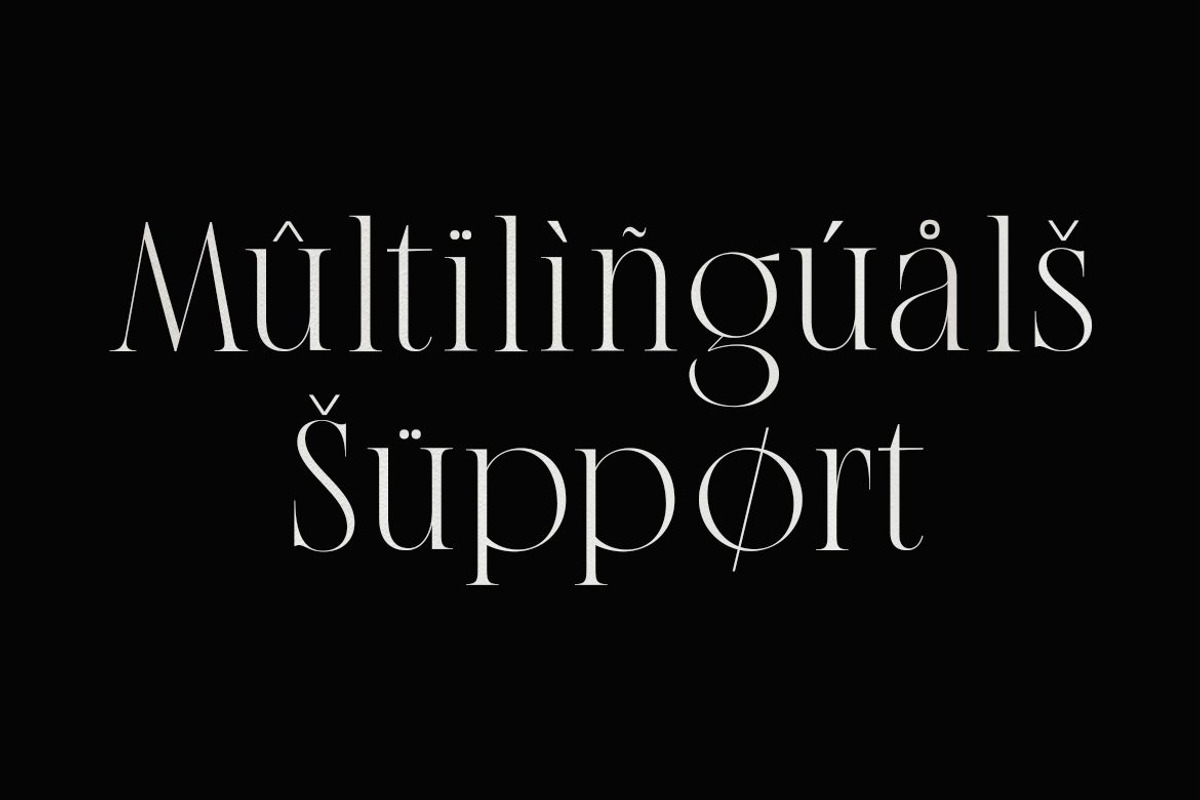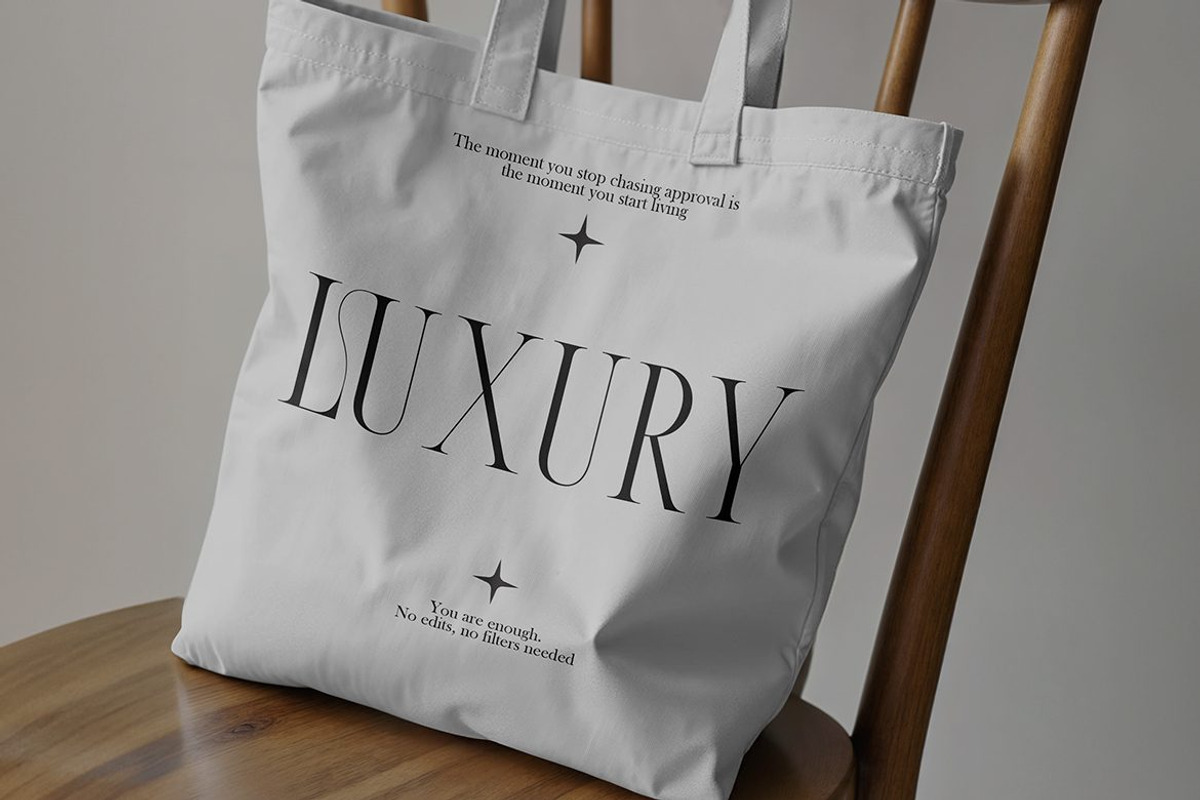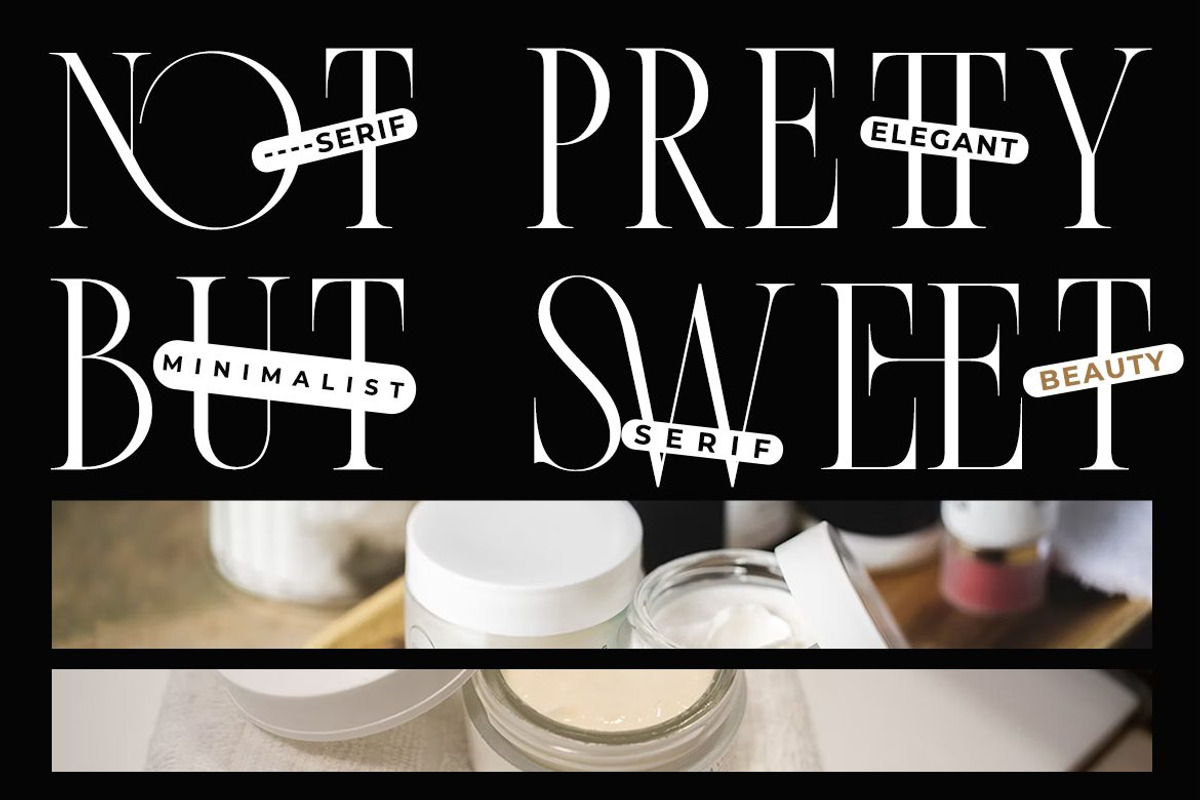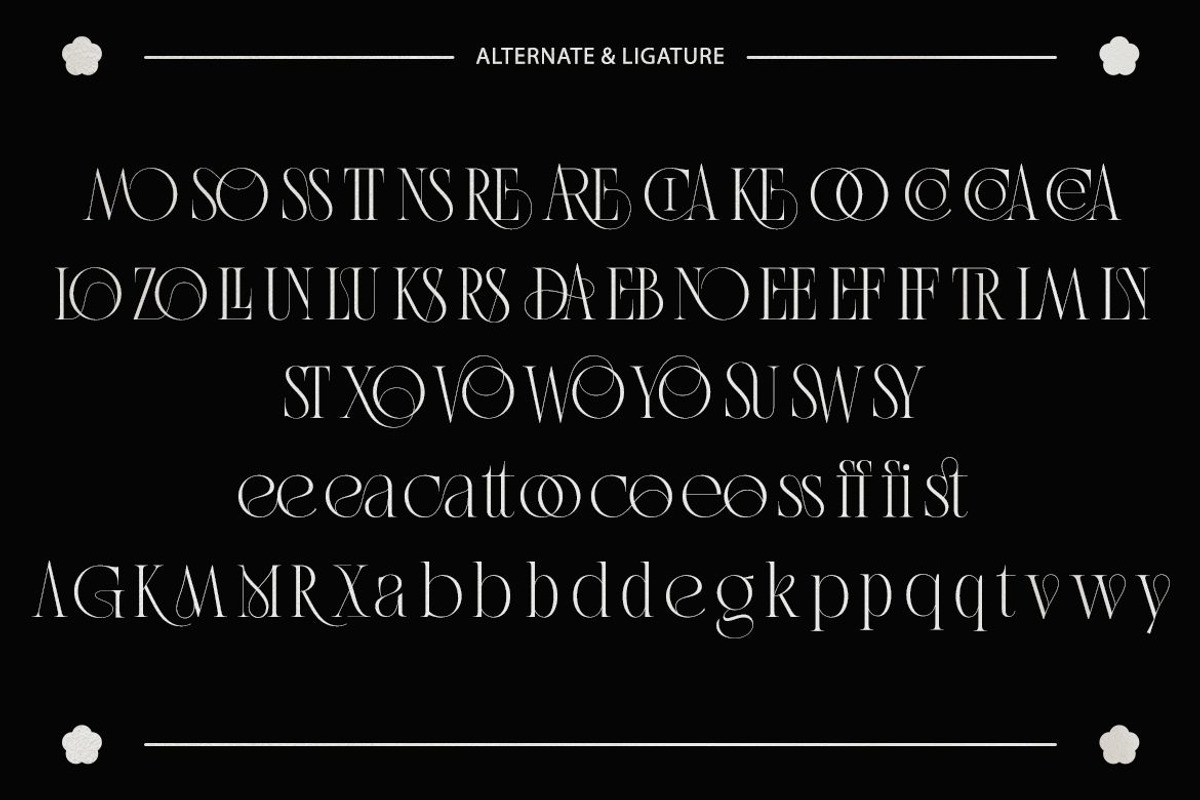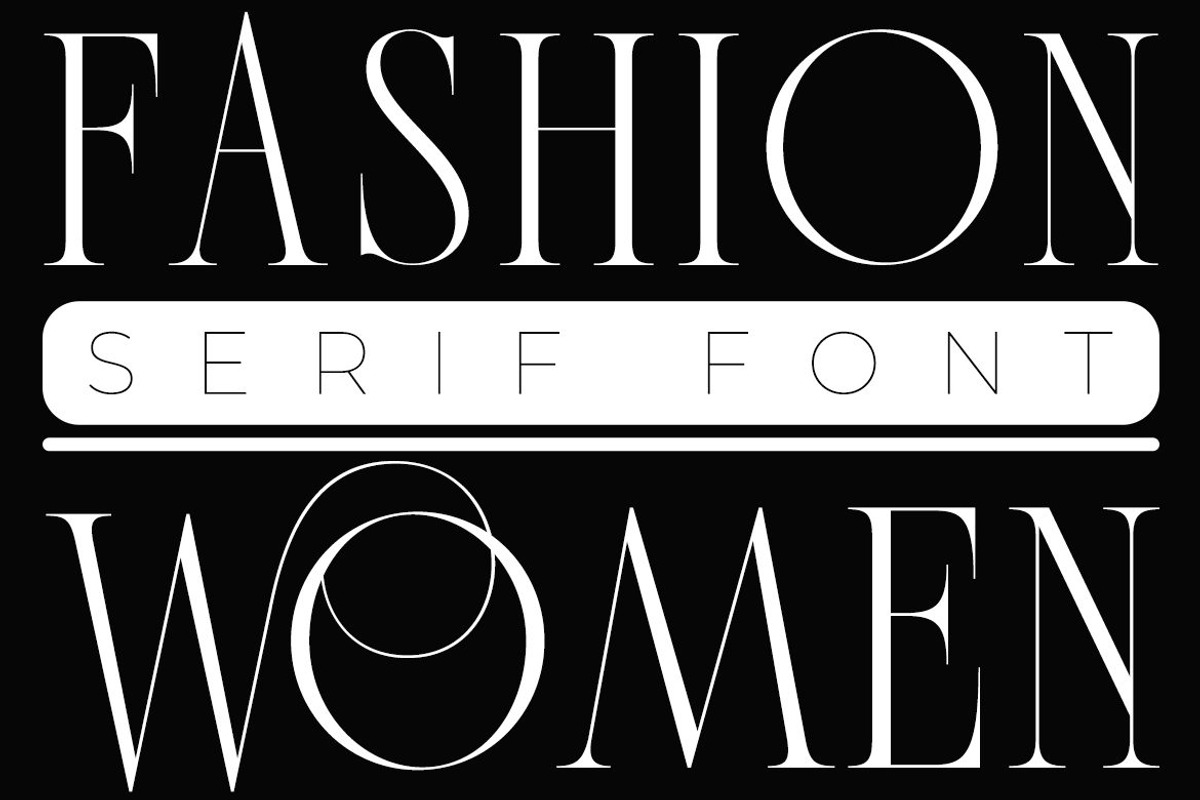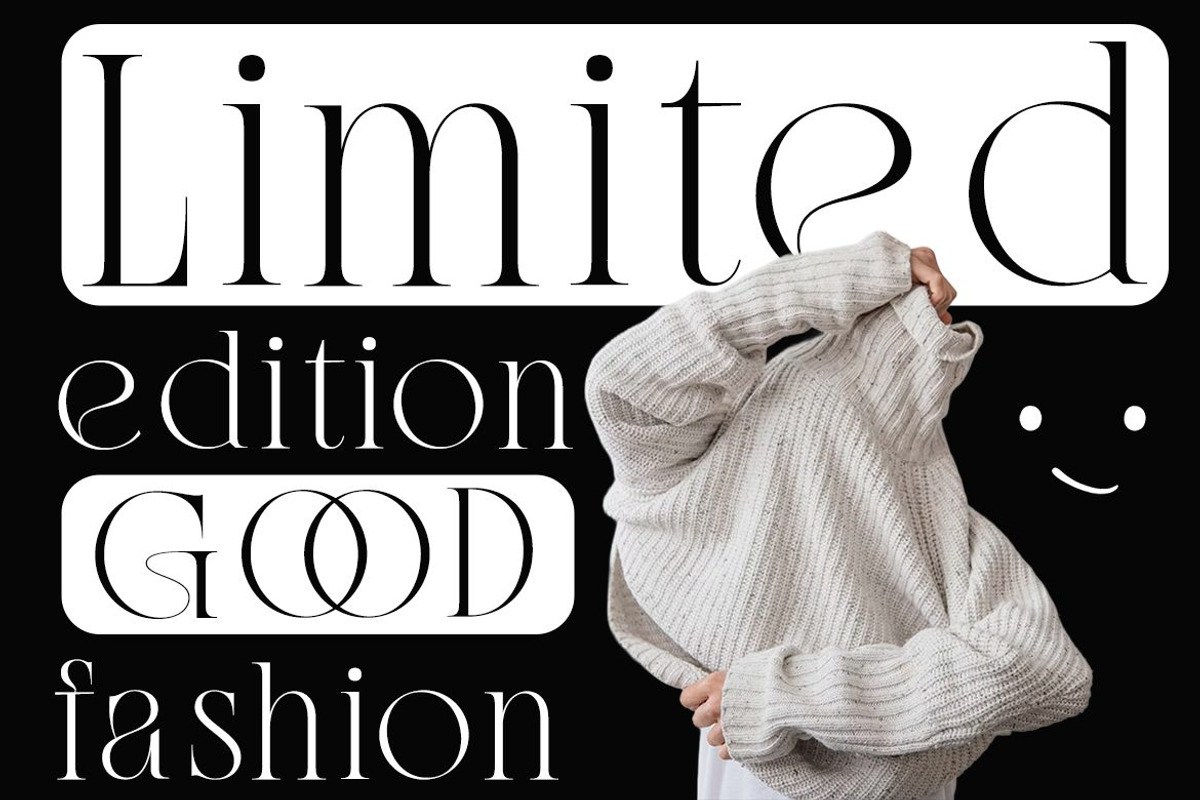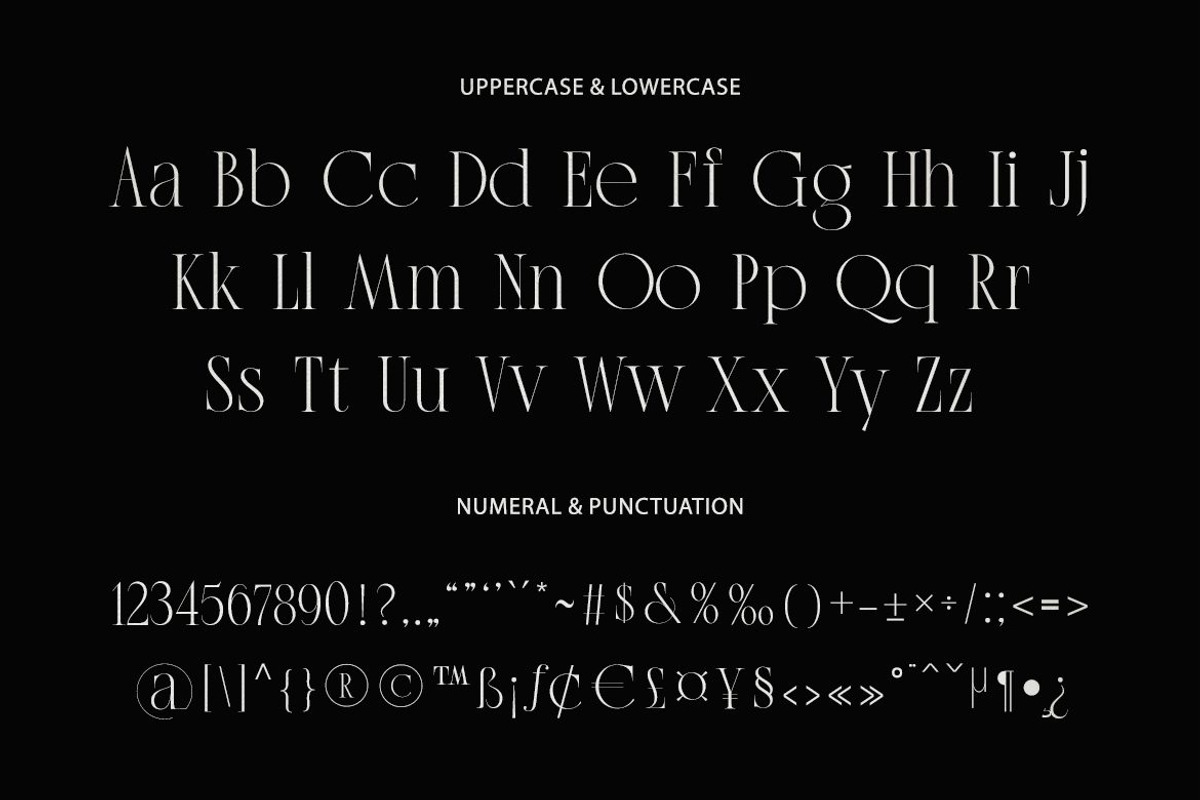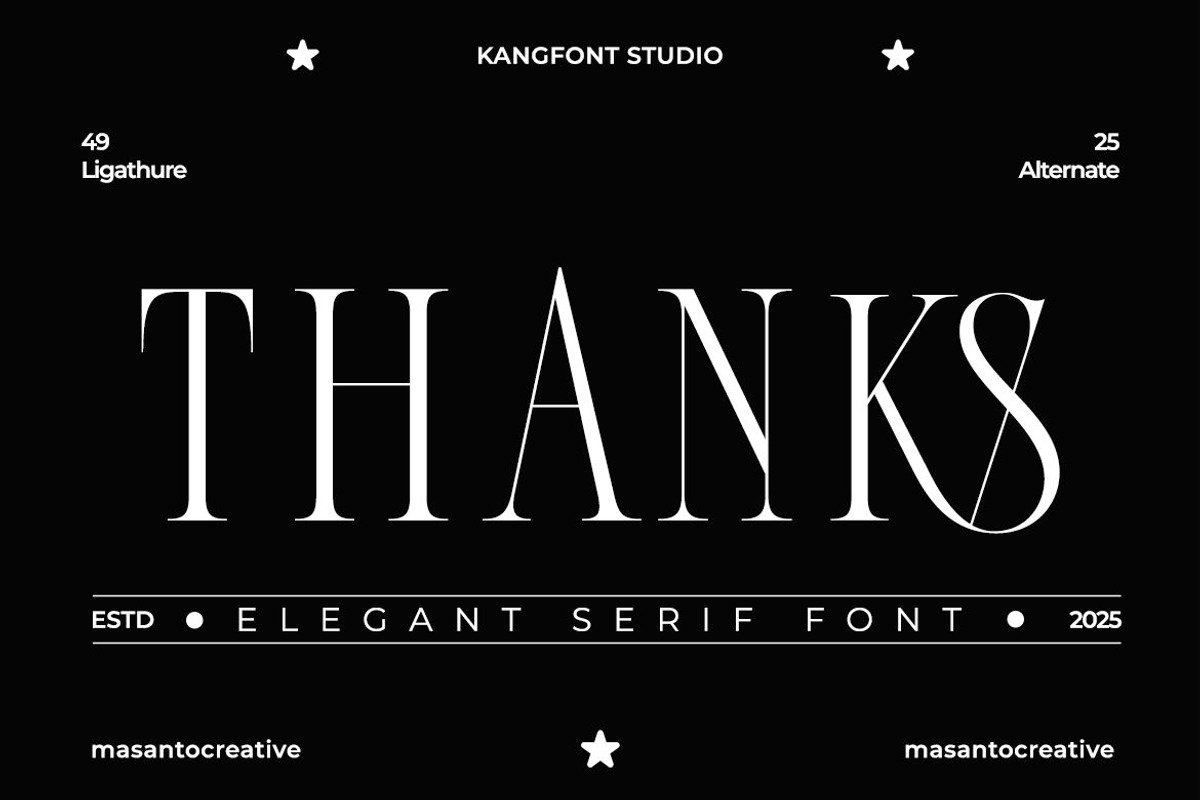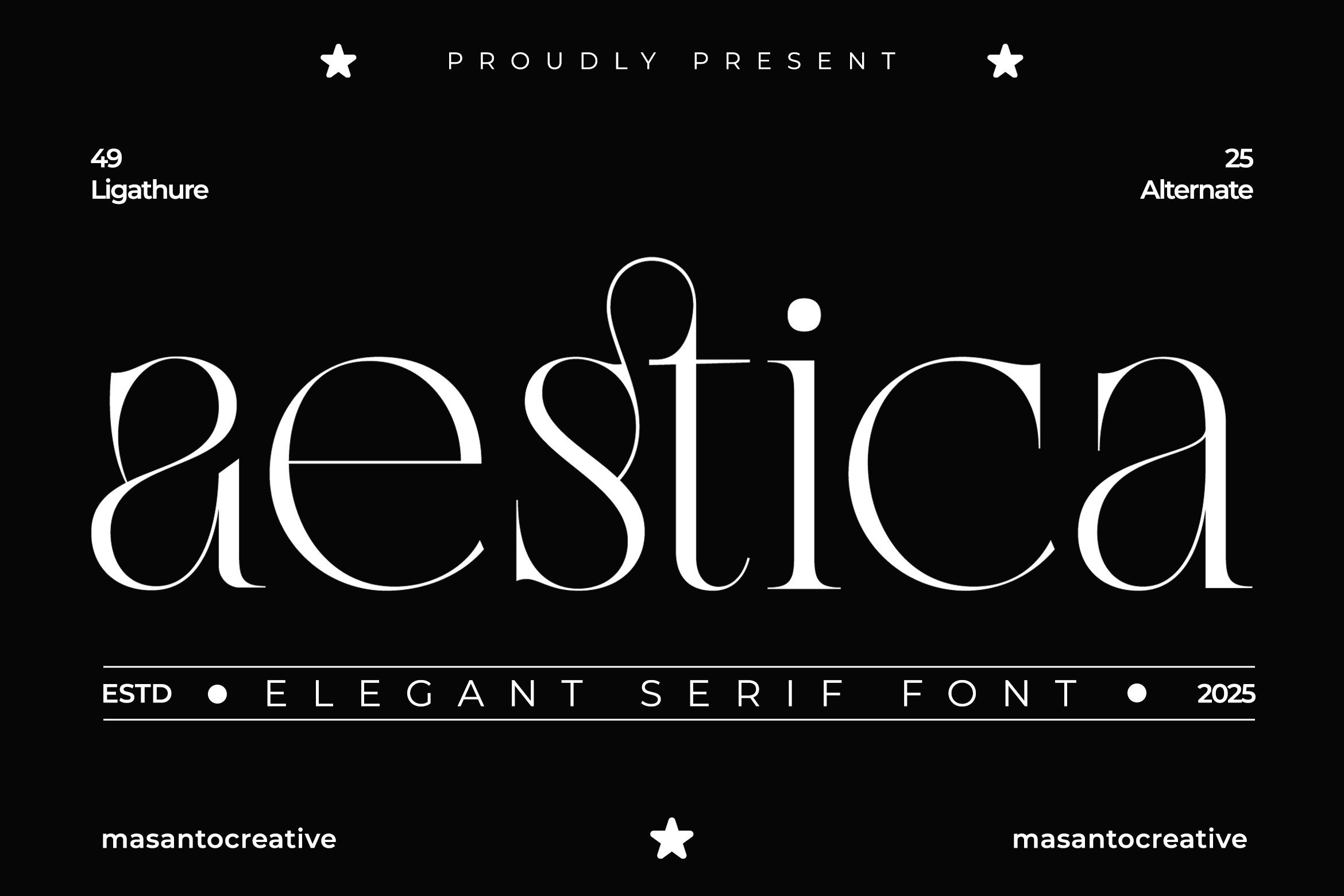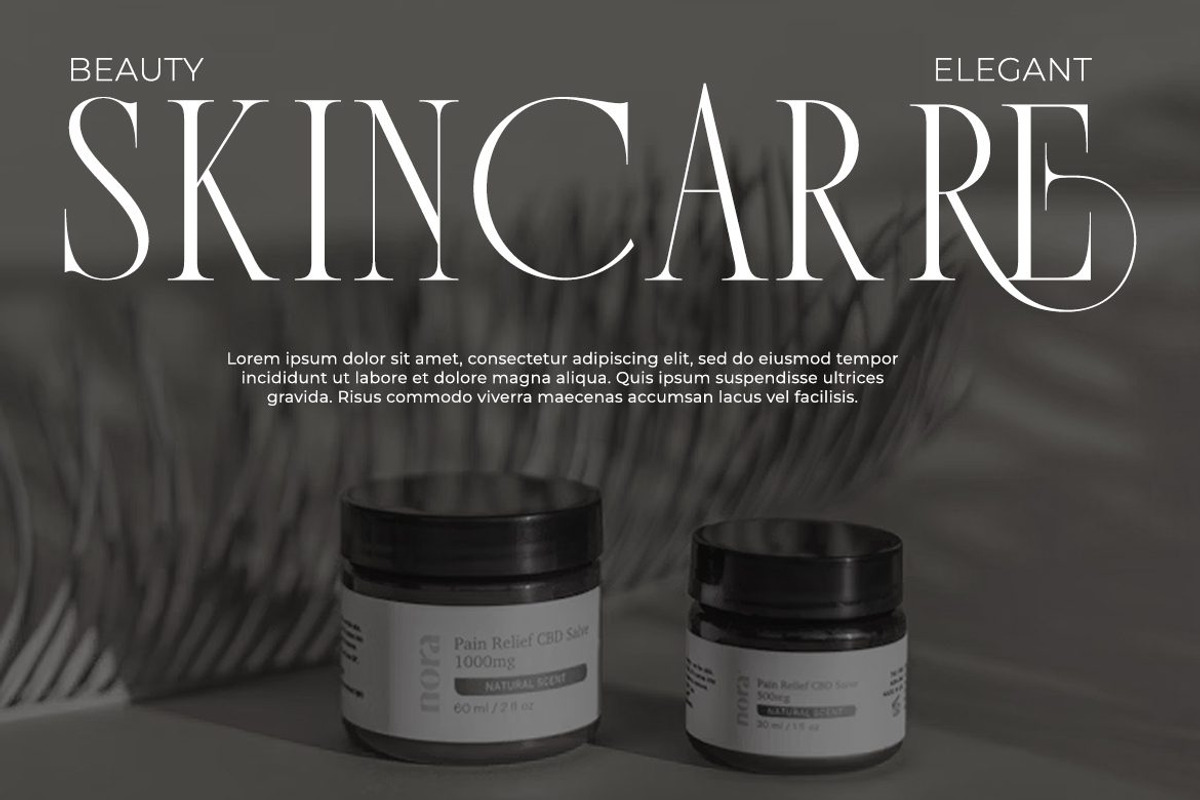
Aestica – Elegant Stylish Serif Font
Aestica is an elegant serif font designed with refined curves, luxurious details, and timeless charm. Featuring 25 stylish alternates and 49 creative ligatures, this font is perfect for creating sophisticated branding, editorial layouts, wedding invitations, packaging design, and high-end logo projects. With its graceful letterforms and modern-classic aesthetics, Aestica brings a touch of luxury to any design. Available in OTF/TTF/WOFF formats, it is easy to install and works seamlessly on both Mac and PC. Whether for print or digital, Aestica ensures your typography stands out with style and elegance.
- Ligature & Stylistic alternate